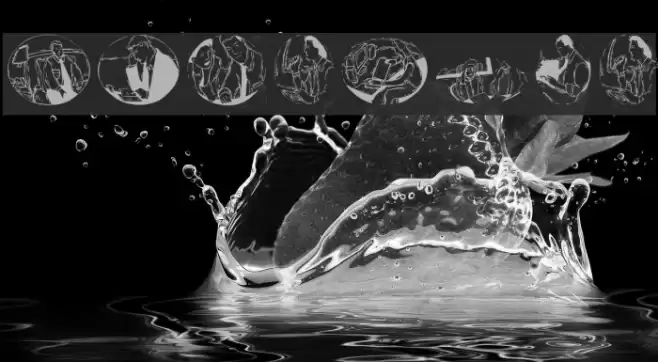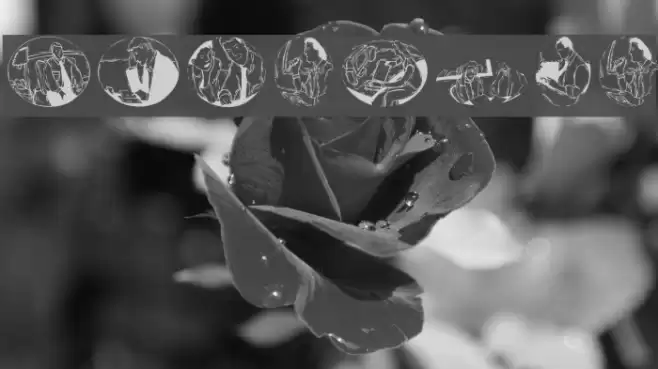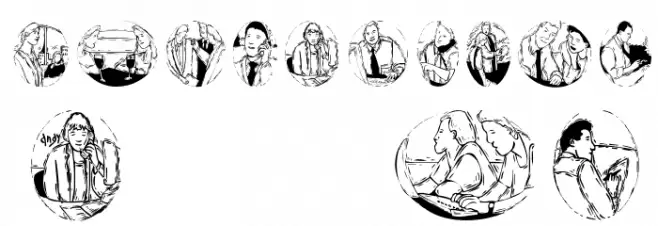
VeryBusy Font
VeryBusy Description
A decorative display typeface where each character is represented by a hand-drawn illustration of people engaged in various business or office activities, enclosed within circular frames. The style is sketch-like, highly illustrative, and visually busy, prioritizing artistic expression over legibility.
Hand-drawn, illustrative font with business-themed character icons from Uncategorized fonts.
- Proposed Projects: Editorial illustrations, creative posters, event invitations, branding for creative agencies, unique social media graphics.
- Overall Style: Decorative, Artistic, Sketch
- Use Case: Logos, Posters, Headlines, Artistic projects